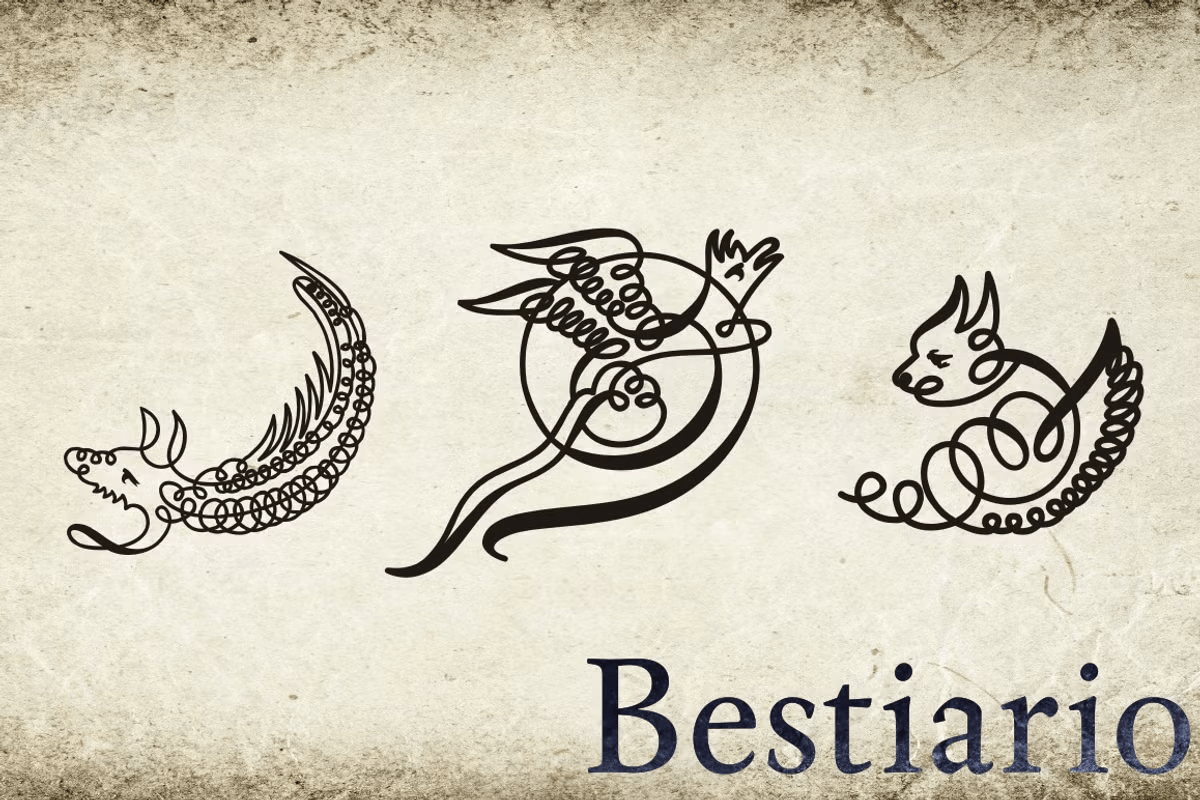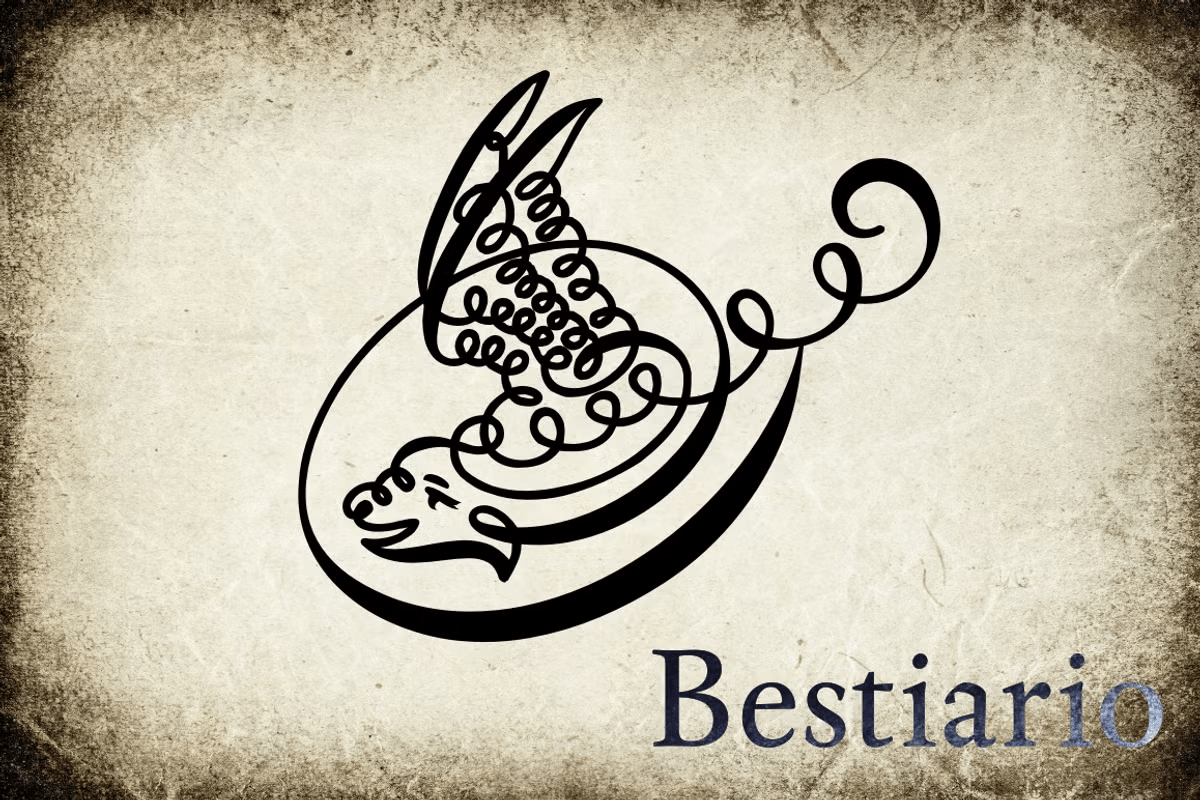
Bestiario
Buy NowJohn Seddon (1644-1700), was a famous english writing master, the leading calligrapher of his time, and master of Sir John Johnson’s Free Writing School in Priest’s Court, Foster Lane. His portrait was drawn by William Faithorne and was engraved by John Sturt as the frontispiece for his copy-books, such as ‘The Ingenious youth’s companion’ of c.1690 and 'The pen-man’s paradise' of c.1695. These were engraved after his work by others.
Your extra-rare book -
"The Pen-mans Paradise Both pleasent & Profitable OR Examples of all ye usuall hands of this Kingdome. Adorn'd with variety of ffigures an Flourishes done by Command of hand. Each ffigure being one continued & entire Track of the pen most where of may be struck as well Reverse (or to answer bothwayes) as Forward", London (1965).
- YES (that is the title of the book) was the starting point to these new extra accurated works of Iza W, a series of revivals of the penmanship Seddon’s artworks, animal and human kingdon inspired penmanship forms in the Bestiario font. On the other hand, his highly ornamented animal kingdon inspired capitals and alphabets in the Seddon Penmans Paradise Capitals typeface. The “SeddonsFleurons” completes the collection.
Fantastic choice to elaborated barocque/renaissance inspired and historical accurated layouts.